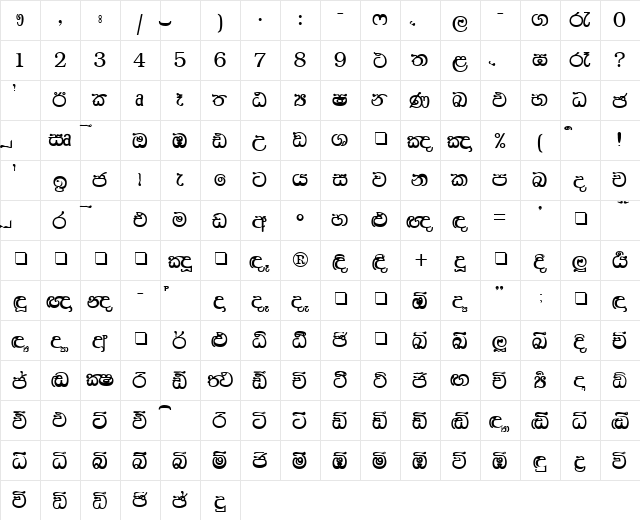
AA-Hansika. Plain.
Design Context for AA-Hansika. Typeface
AA-Hansika. offers clean, dependable letterforms without strong stylistic allegiance, making it a practical choice for designers who need flexibility.